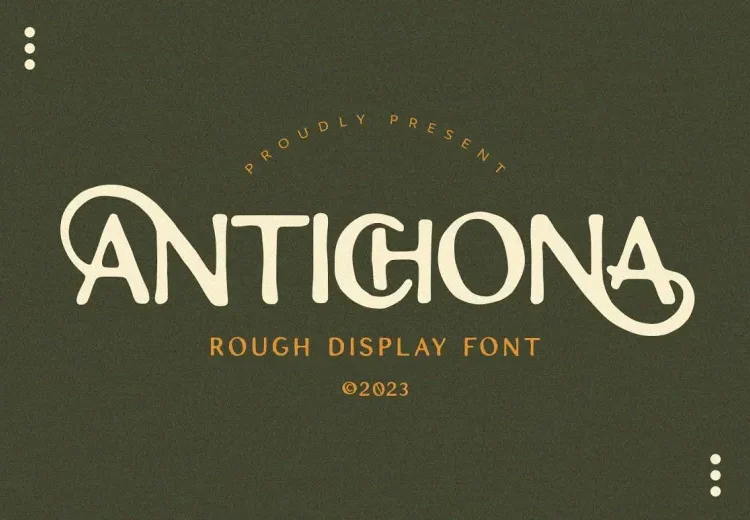
Antichona Font
Antichona is an authentic retro-inspired display font, perfect for adding a vintage touch to your creative projects. This font excels in various applications, such as branding, logo design, and lettering projects. Whether you’re working on clothing labels, posters, magazines, packaging, shopping bags, T-shirts, or book covers, Antichona brings a nostalgic charm that stands out.
It is also well-suited for photography, special event materials, and other design elements that require a unique retro flair. Its distinctive style makes it a versatile choice for any project that aims to evoke a sense of classic, timeless design.